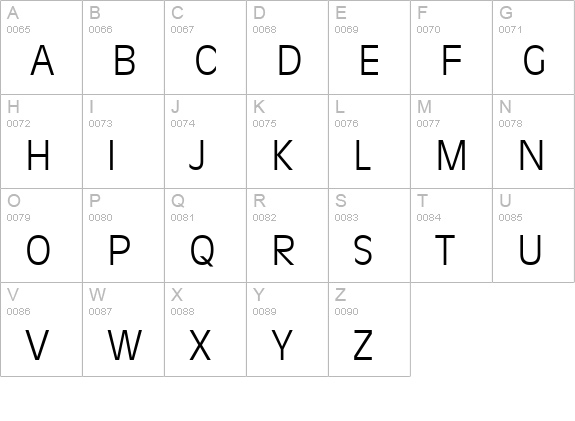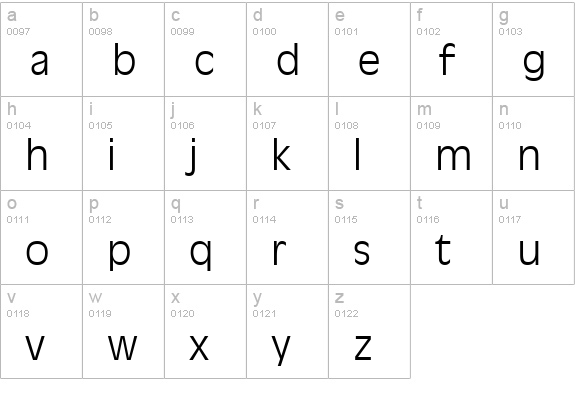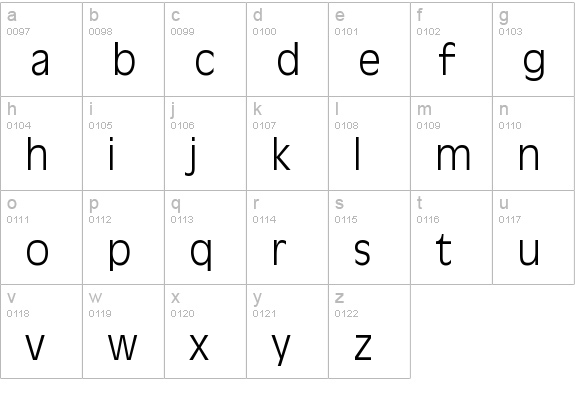
Decade Light SSi Light Font Details
Decade Light SSi Light is a refined, elegant variant in the Decade typeface family \xE2\x80\x94 well suited to elegant body text, refined sub-headings, and luxury branding.
Decade Light SSi Light font is a modern and sleek typeface that exudes elegance and sophistication. Its clean lines and subtle curves make it perfect for a wide range of design projects, from branding to editorial layouts. The light weight of this font adds a touch of airiness and delicacy to any text, making it especially suitable for titles and headings. What sets Decade Light SSi Light font apart is that it is available for free download at FontsMarket.com. This means that you can easily access and use this beautiful font in your projects without any cost involved. Whether you're a designer looking to add a touch of refinement to your work or a content creator searching for a stylish font for your website, Decade Light SSi Light font is a fantastic choice that won't break the bank. Don't miss out on this opportunity to enhance your designs with the elegance of Decade Light SSi Light font. Download it for free today at FontsMarket.com and elevate your projects with this timeless and versatile typeface.